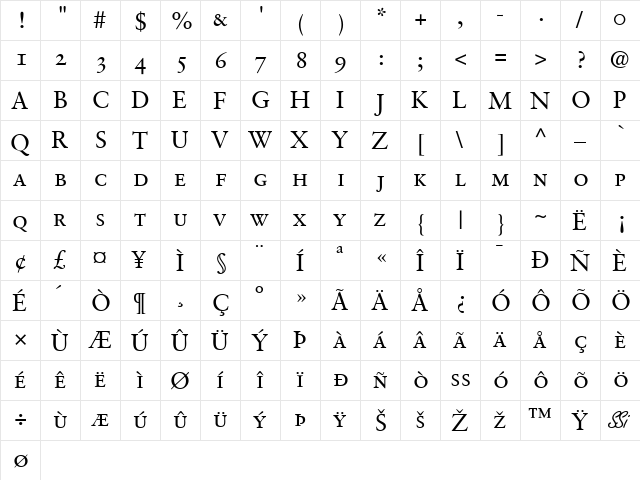
GaramondRetrospectiveOldStyleSSiSmallCaps Medium Font Preview
GaramondRetrospectiveOldStyleSSiSmallCaps Medium
Design Context for GaramondRetrospectiveOldStyleSSiSmallCaps Typeface
GaramondRetrospectiveOldStyleSSiSmallCaps wears its vintage influences proudly, with letterforms that recall mid-century signage, classic packaging, and nostalgia-driven design.
Perfect for vintage-inspired branding, retro packaging, nostalgia campaigns, and period-accurate editorial design.
Font Pairing: Combine GaramondRetrospectiveOldStyleSSiSmallCaps with a simple slab or neutral sans — period-accurate companions reinforce the vintage feel without competing for attention.
Pro Tip: Use GaramondRetrospectiveOldStyleSSiSmallCaps for headlines and pull quotes rather than body copy — its personality is best appreciated in short, focused bursts.